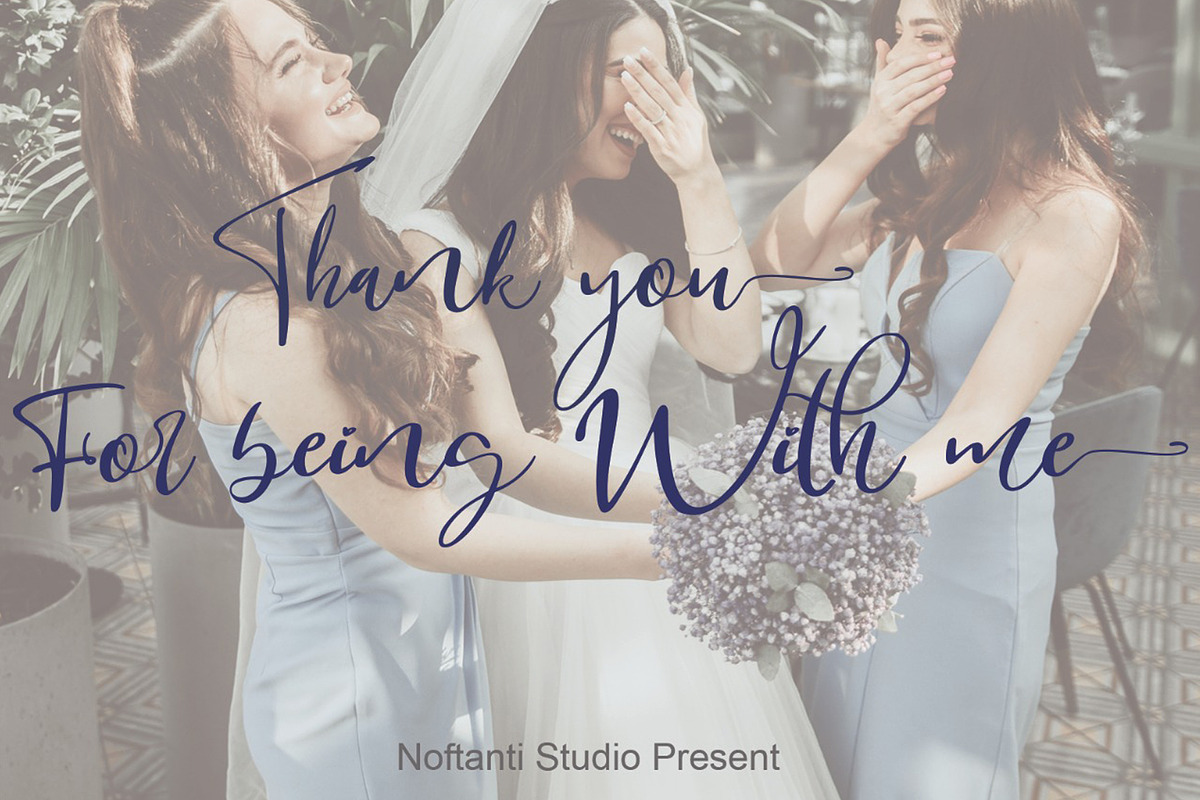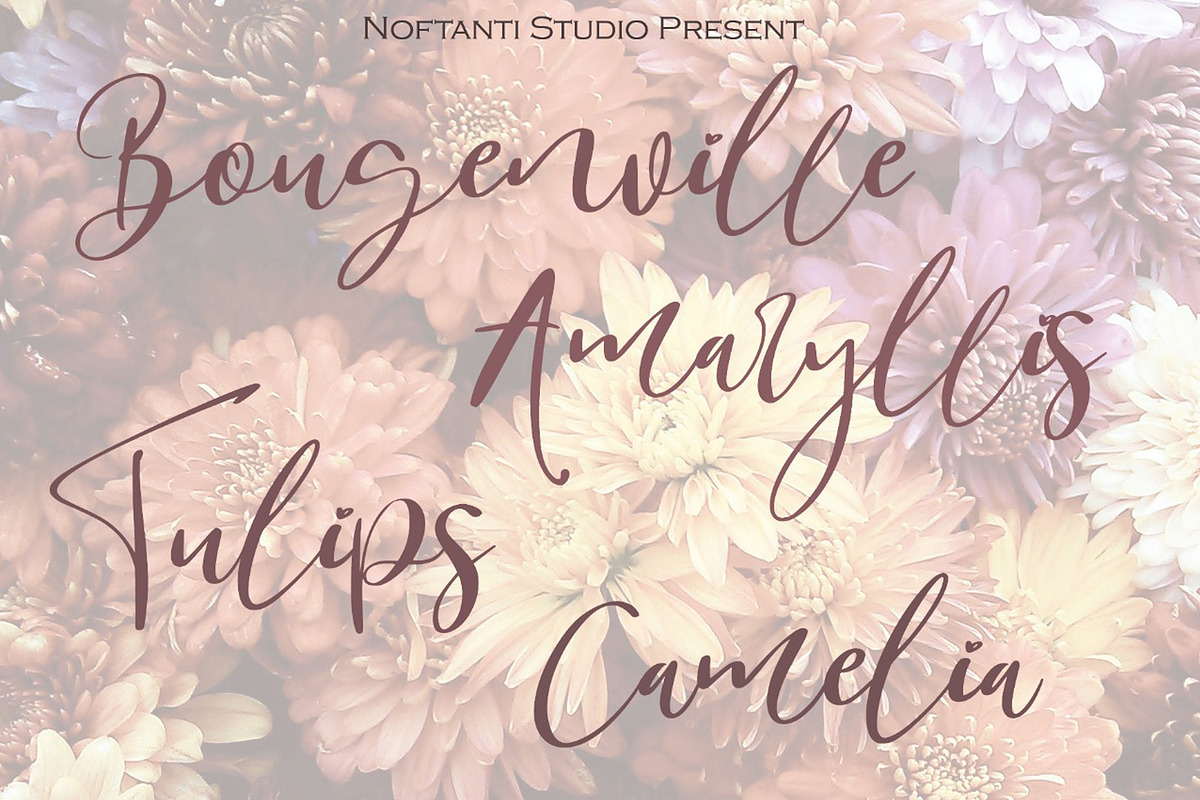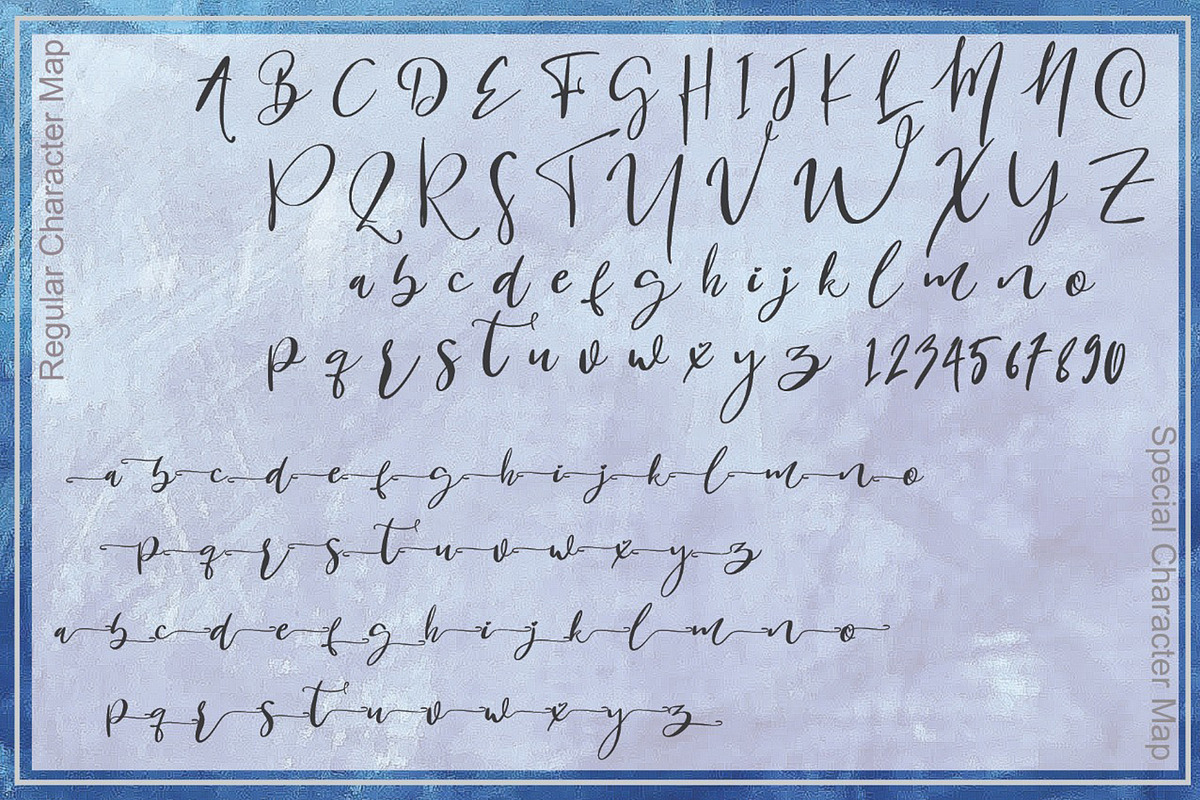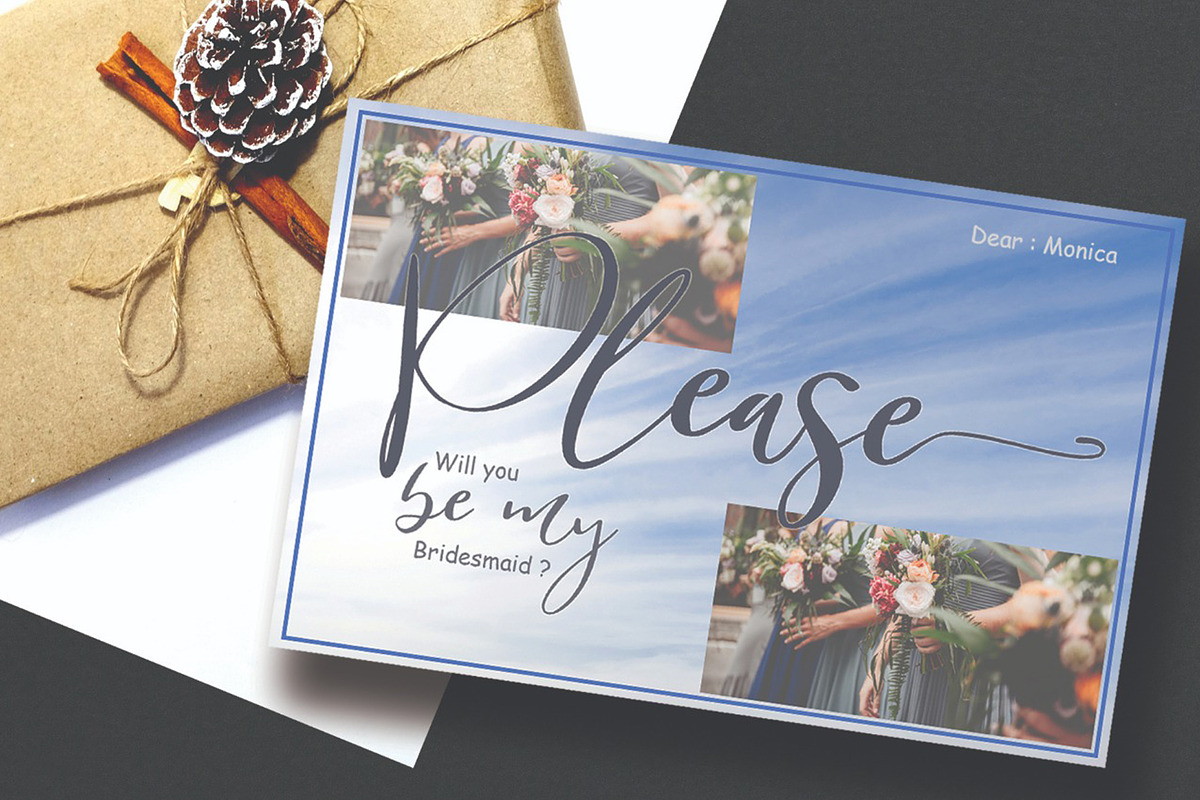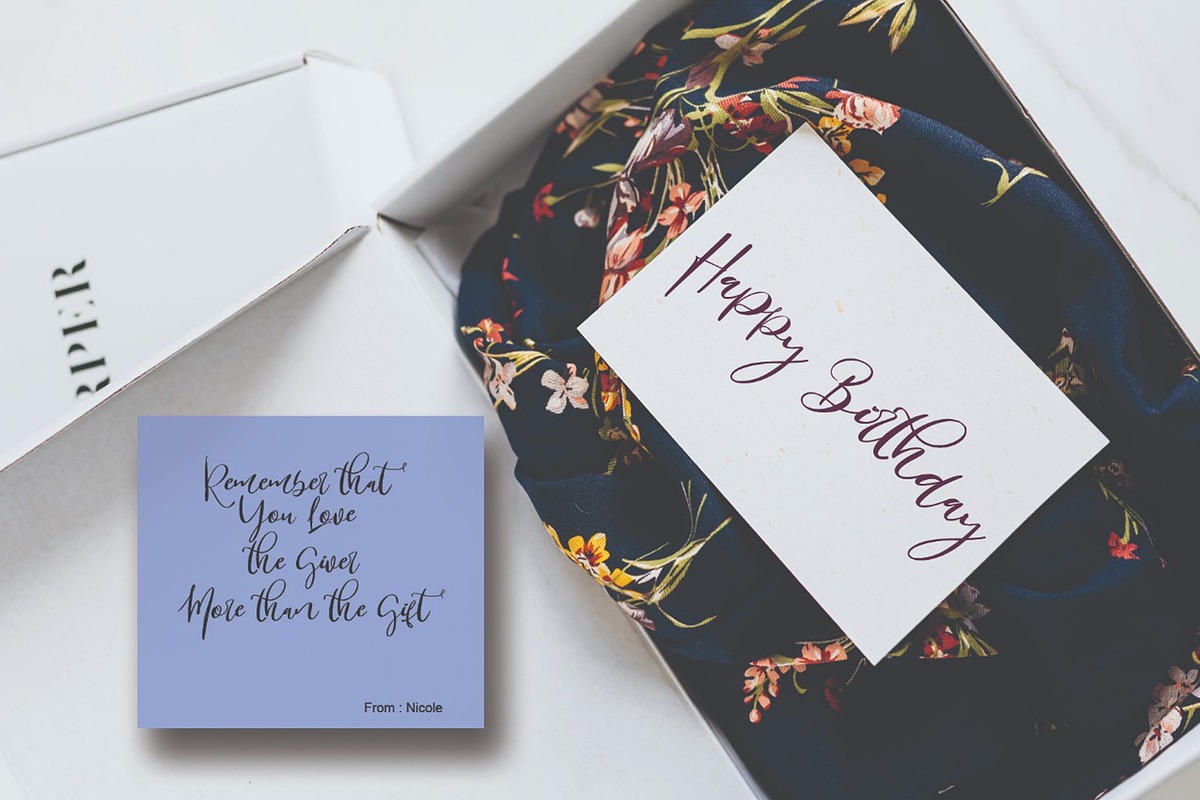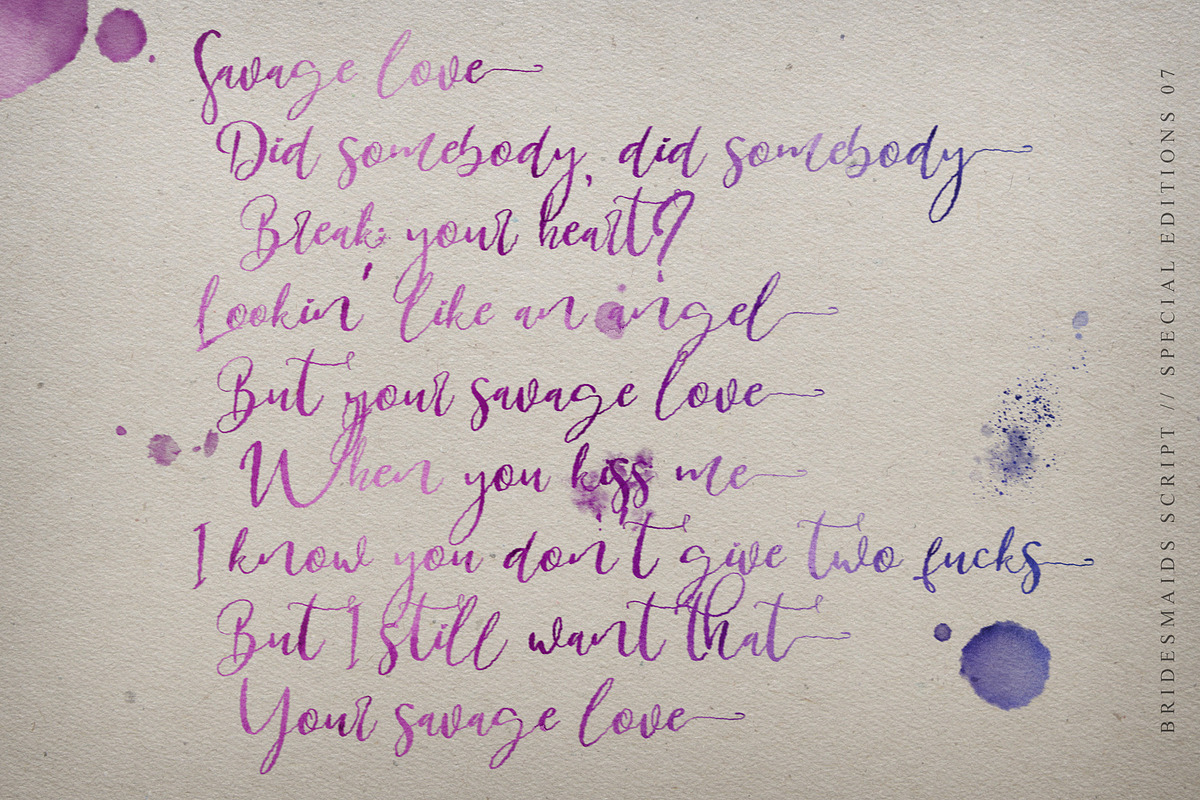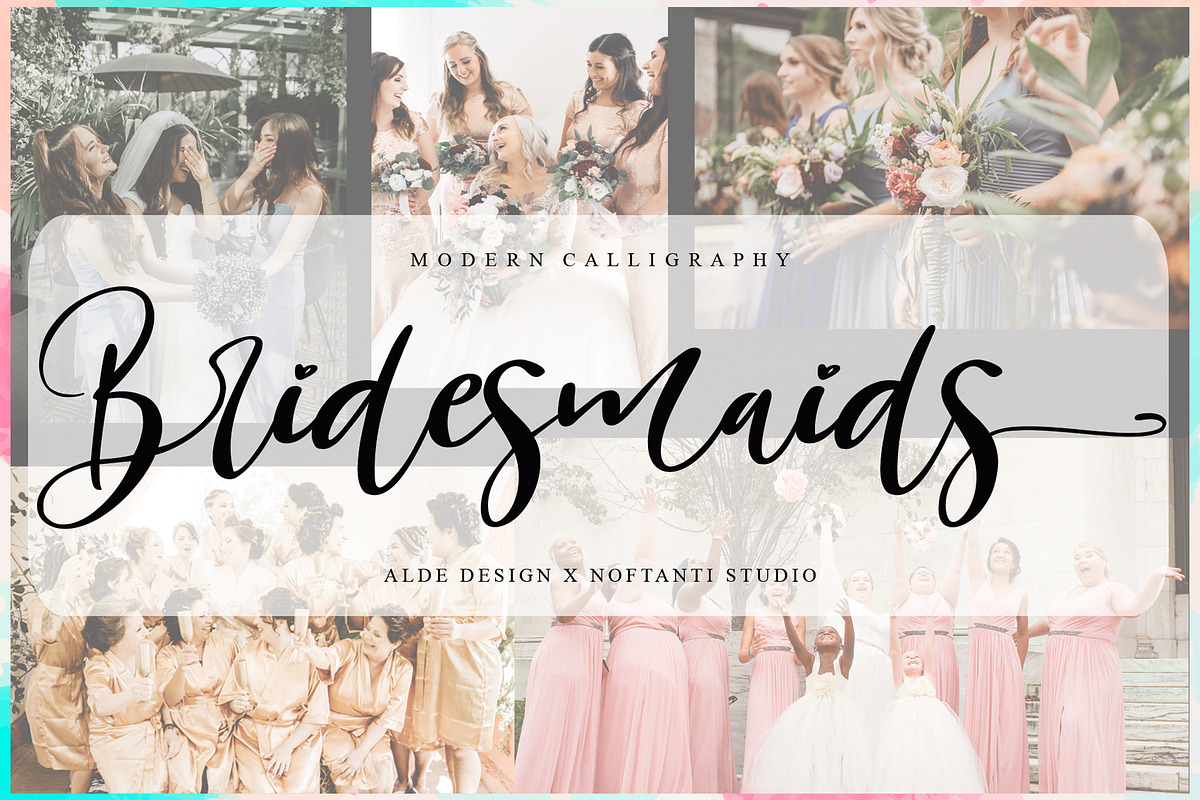
Bridesmaids
Alde Design x Noftanti Studio
Bridesmaids Cutes Script Font
Bridesmaids is a modern handwritten font that brings its own unique style to any design project. It will elevate a wide range of design projects to the highest level, be it branding, headings, wedding designs, invitations, signatures, logos, labels, and much more!
- Stylish modern handwritten script
- Beautiful Swash (Ending tail)
- Beautiful Titling (Beginning tail)
- Special Ligatures